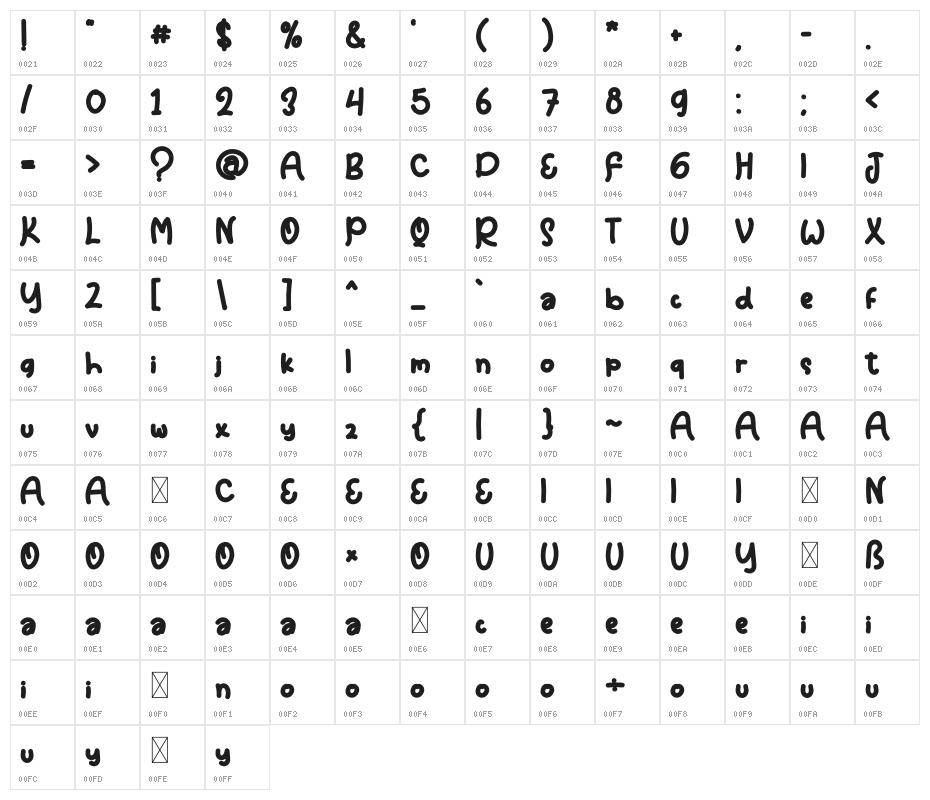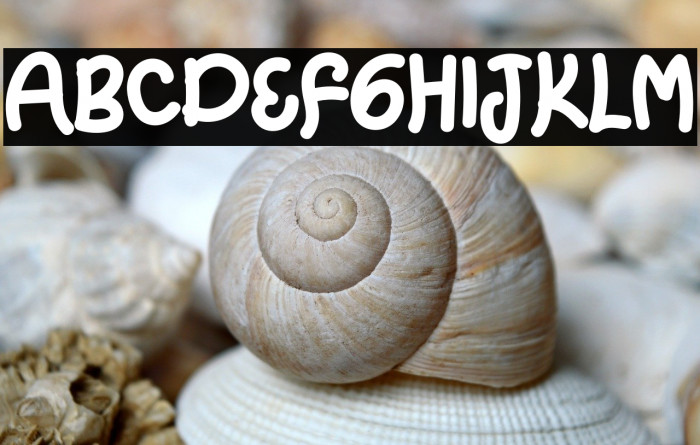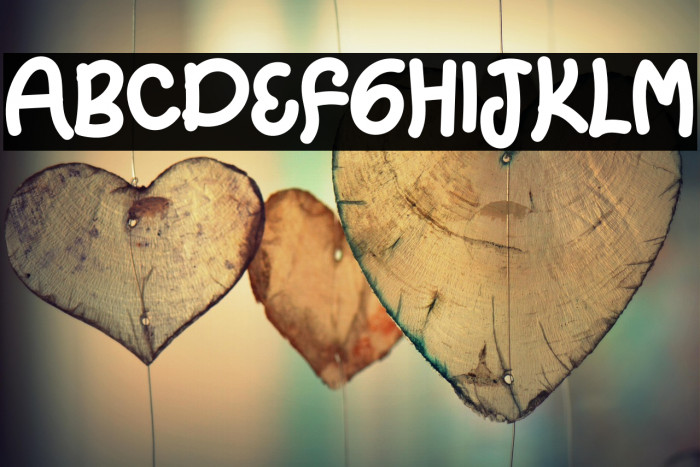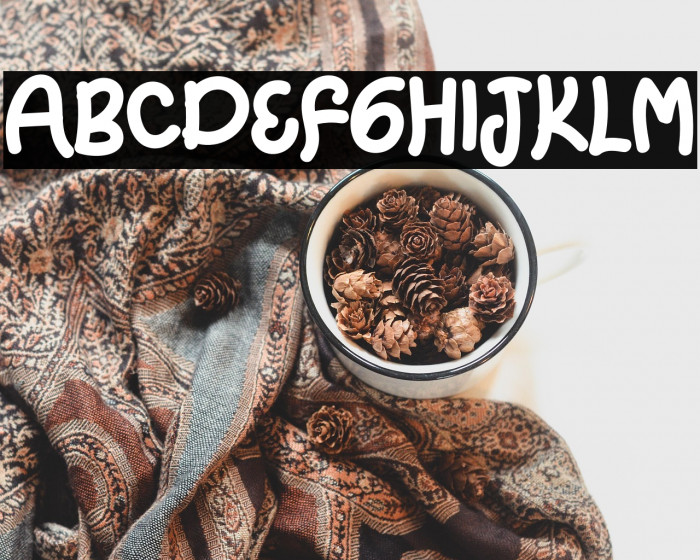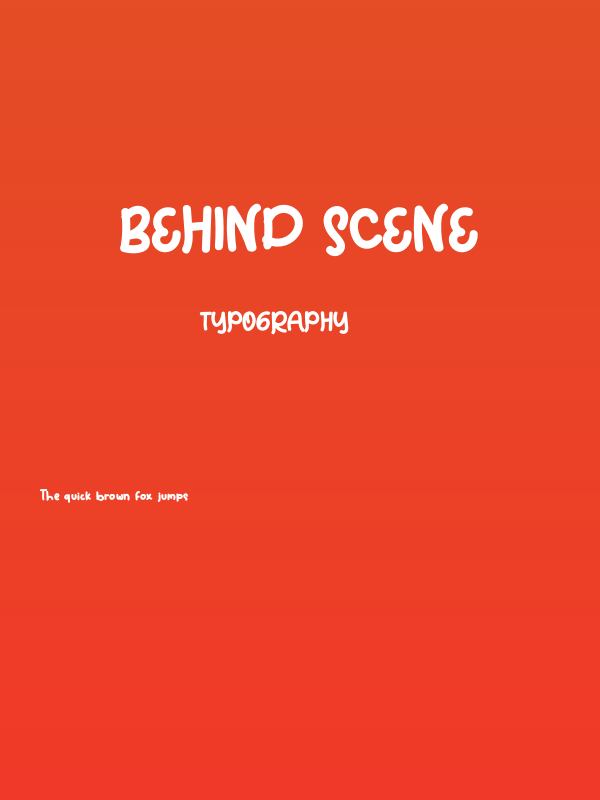
Behind Scene Font
Behind Scene Description
A playful, bold handwritten font with rounded edges and a casual style.
| Use Case | Logos, Headlines, Informal text |
| Proposed Projects | Children's books, informal invitations, playful branding. |